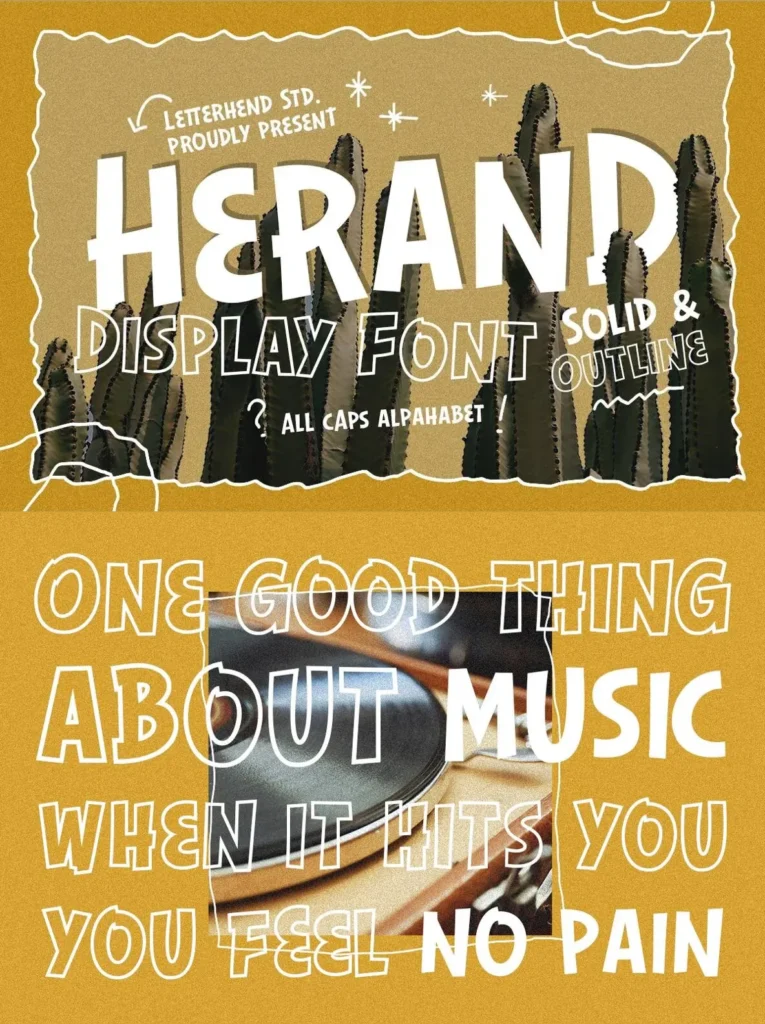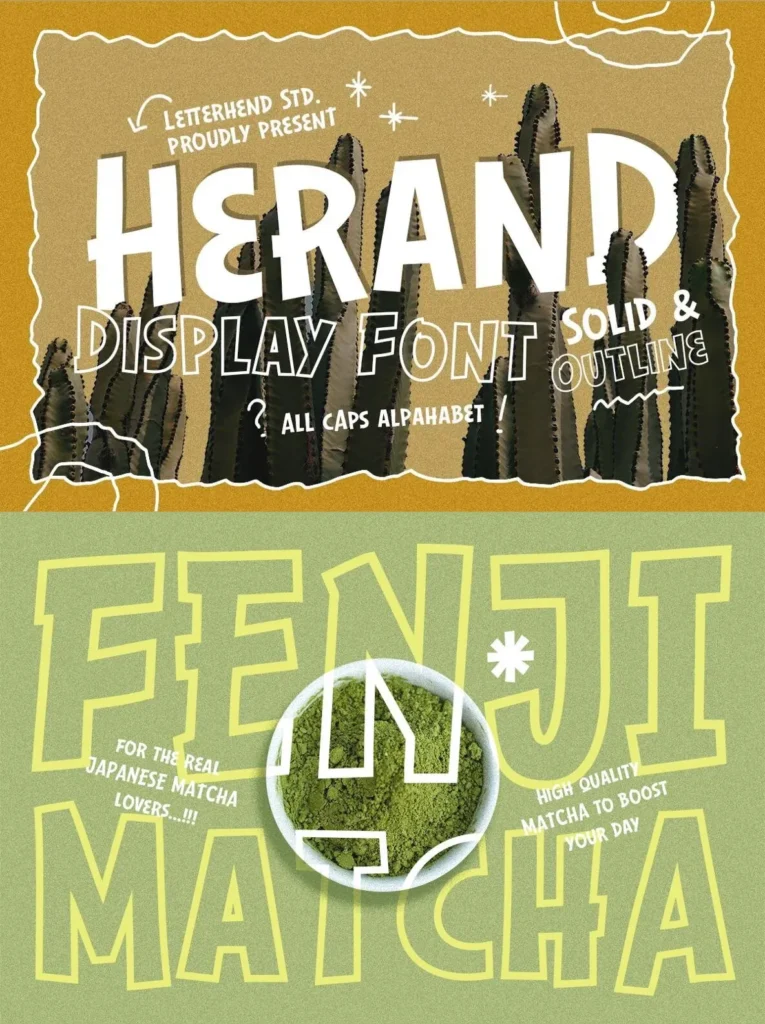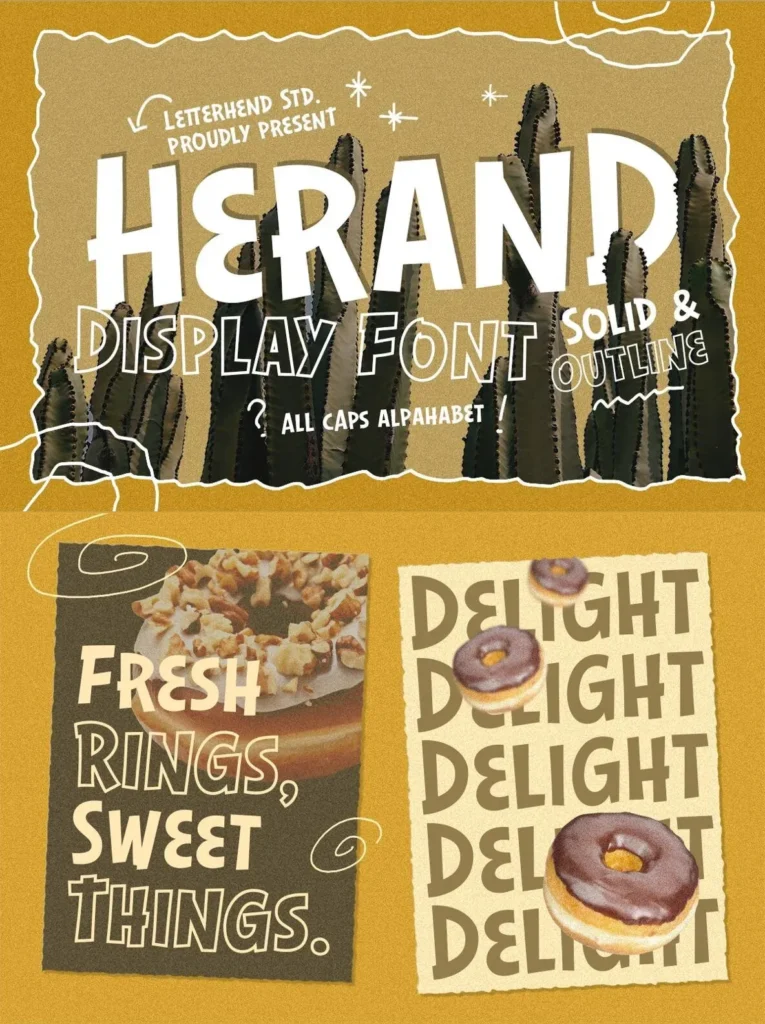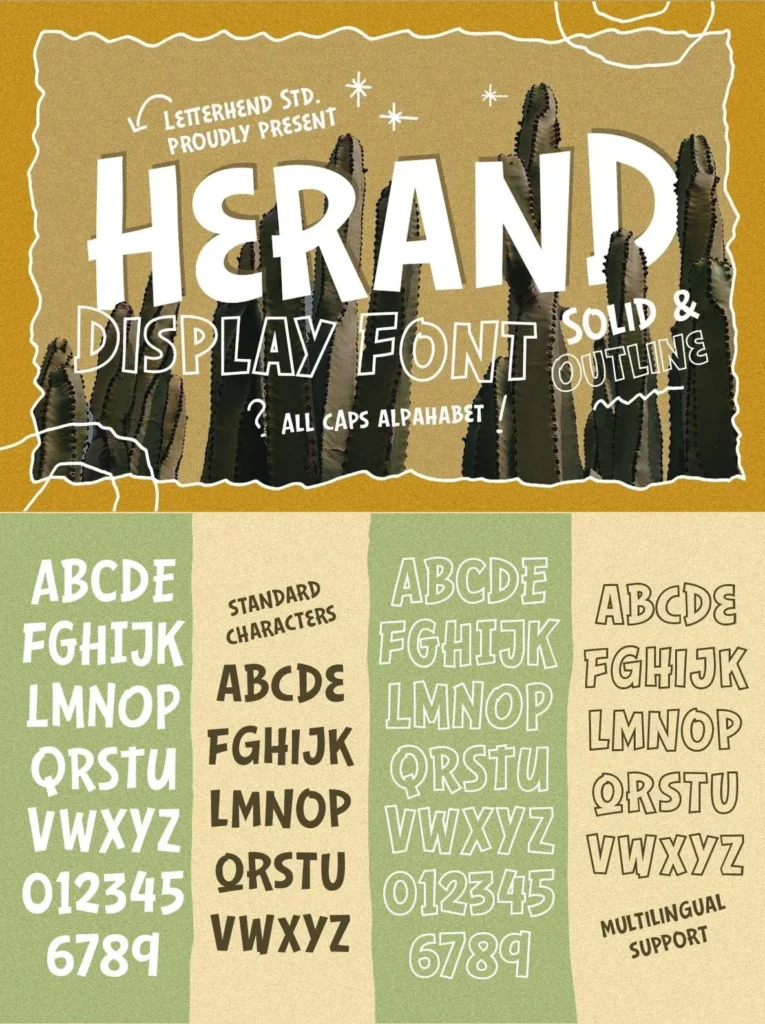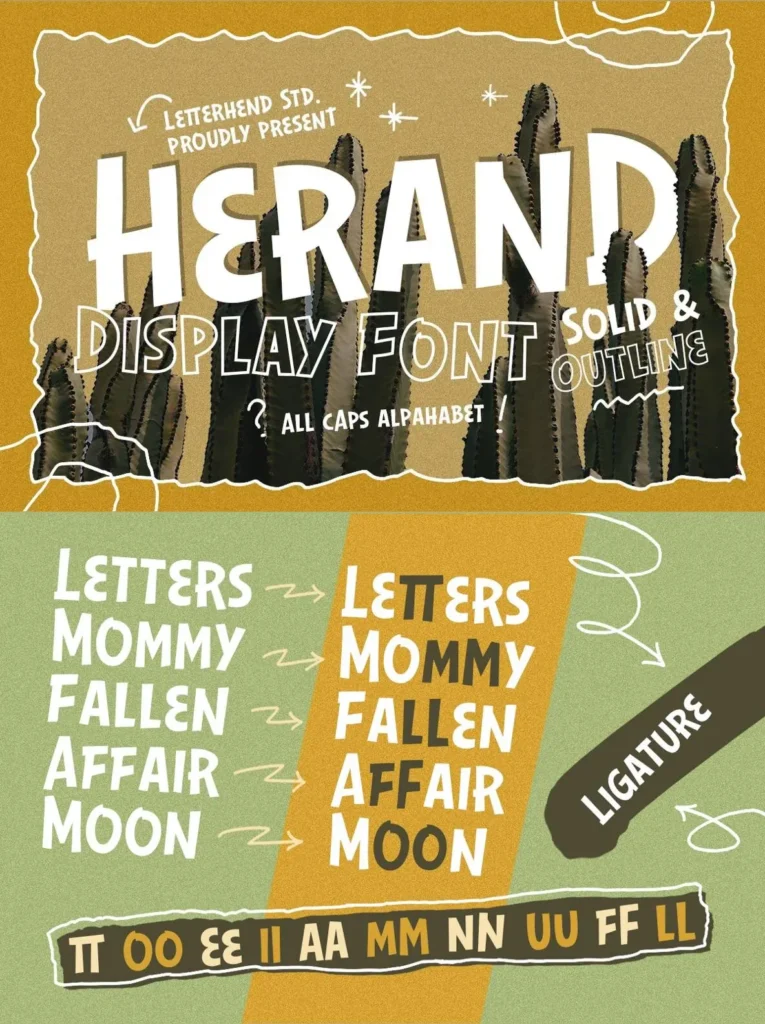
Herand Font
Herand — Handmade Bold With Bite
Herand brings a bold handcrafted spirit to display typography, pairing playful uneven shapes with a relaxed handmade attitude. Its chunky all-caps letterforms feel friendly, casual, and full of character, giving posters, packaging, branding, social graphics, and headline layouts a warm, tactile presence.
The family includes solid and outline styles, making it easy to mix, layer, and build eye-catching designs with a strong hand-drawn look. With uppercase and lowercase characters, punctuation, alternates, ligatures, multilingual support, and PUA encoding, Herand gives designers practical flexibility while keeping its lively, approachable personality intact.
Features
Uppercase & lowercase
Numbers and punctuation
Alternates & Ligatures
Multilingual Support